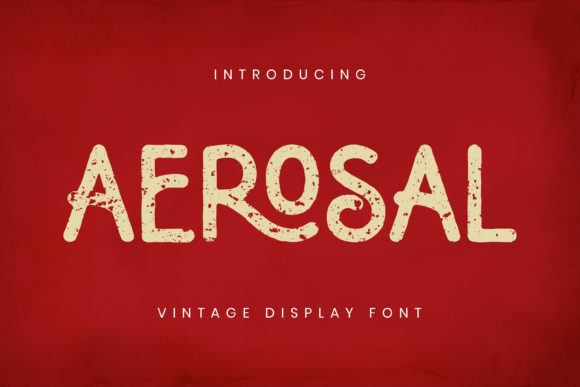
Unleash the Retro Charm: A Journey Through Time with Aerosal Font
Step into a world of timeless elegance and captivating aesthetics with Aerosal Font, the display font that evokes the beauty of bygone eras. A creation of ovoz.graphics, this font is a masterpiece of vintage charm, meticulously crafted to transport your designs to a realm of nostalgia and sophistication.
With Aerosal Font's sweeping curves and delicate swashes, you'll find yourself immersed in a world of retro elegance. Its carefully designed characters exude a sense of warmth and authenticity, perfect for adding a touch of vintage charm to your creative projects. Whether you're crafting wedding invitations, designing logos, or creating social media graphics, Aerosal Font will elevate your designs with its timeless appeal.
Discover the Versatility of Aerosal Font: A Font for Every Occasion
Aerosal Font is not just a font; it's a versatile tool that adapts effortlessly to a wide range of creative endeavors. Its vintage charm shines through in branding projects, adding a touch of distinction to your company's identity. Create eye-catching labels that exude a sense of nostalgia, or use Aerosal Font to craft unique and memorable packaging designs that will leave a lasting impression on your customers.
But Aerosal Font's versatility doesn't end there. Its delicate swashes and elegant curves make it an ideal choice for creating stunning wedding invitations, save-the-dates, and other special occasion stationery. Imagine your wedding invitation adorned with the beautiful Aerosal Font, setting the tone for a romantic and unforgettable celebration.
Experience the Ease of Use: Aerosal Font – The Designer's Ally
Aerosal Font is not just aesthetically pleasing; it's also incredibly user-friendly. Its PUA encoding ensures that accessing all glyphs and swashes is a breeze, making it easy to incorporate intricate details and embellishments into your designs. Whether you're a seasoned designer or just starting, Aerosal Font's intuitive nature will make your creative process smooth and enjoyable.
Unlock Your Creative Potential: Aerosal Font – The Gateway to Design Excellence
With Aerosal Font at your fingertips, you'll discover a new level of creativity and inspiration. Its vintage charm and versatility will empower you to create designs that captivate and enchant your audience. From elegant logos to nostalgic branding, from heartfelt wedding invitations to eye-catching social media graphics, Aerosal Font will become your trusted companion in your creative journey.